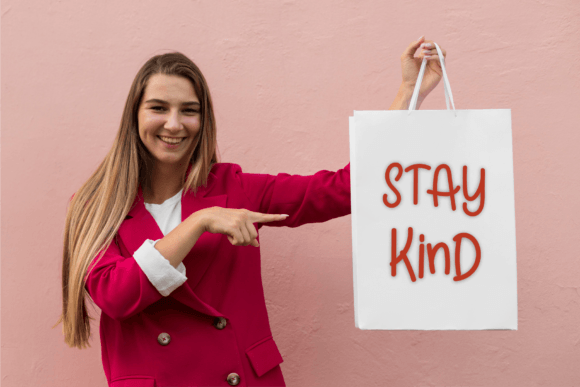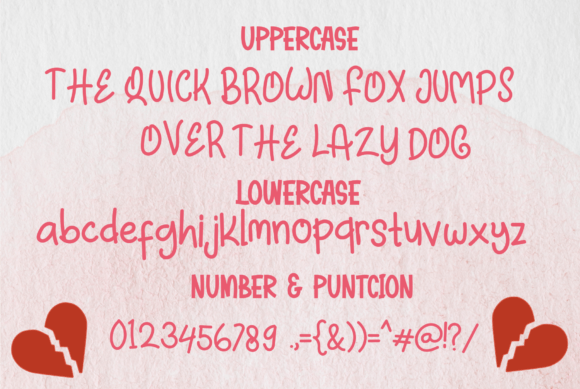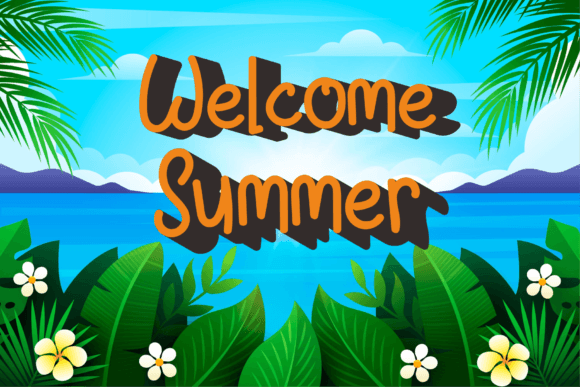
Introduction to Break Heart Handwritten Font
“Break Heart Handwritten” is a natural handwritten font that captures the essence of authentic penmanship.
With its flowing and organic letterforms, this font emulates the beauty and imperfections of human handwriting Whether used for projects, greeting cards, or digital artworks, “Break Heart Handwritten” adds a genuine and heartfelt touch to your designs, making them feel unique.
Key Features of Break Heart Handwritten Font
• âś… High quality design for professional projects
Why Choose Break Heart Handwritten Font?
Break Heart Handwritten Font offers exceptional quality and versatility, making it a valuable addition to your design toolkit. Whether you’re creating for personal projects or commercial use, Break Heart Handwritten Font delivers professional results.